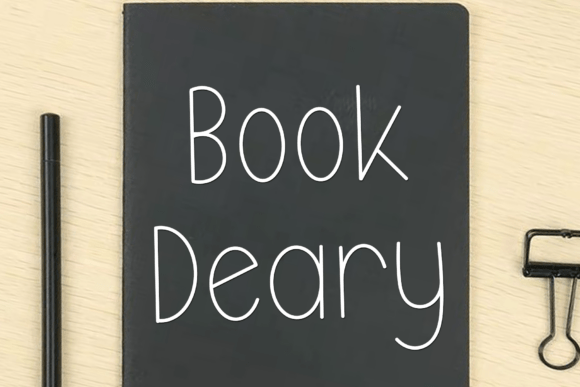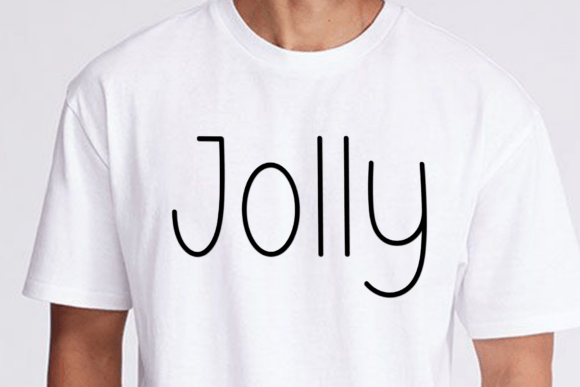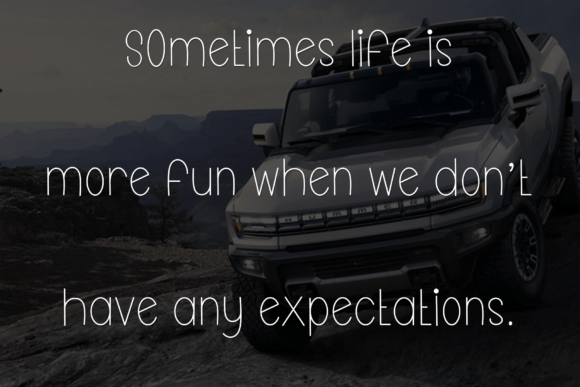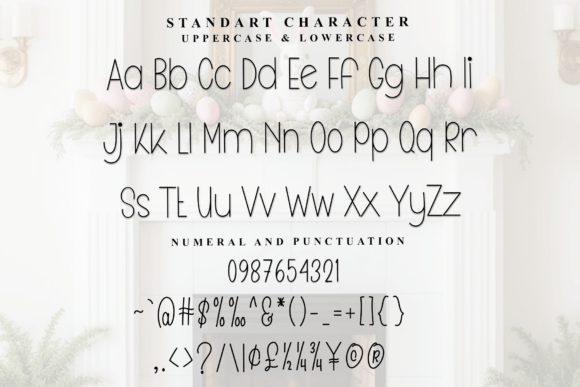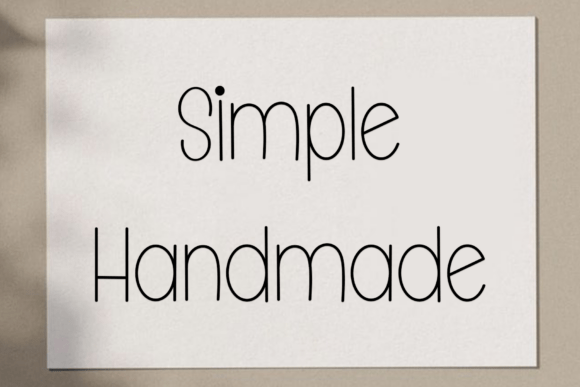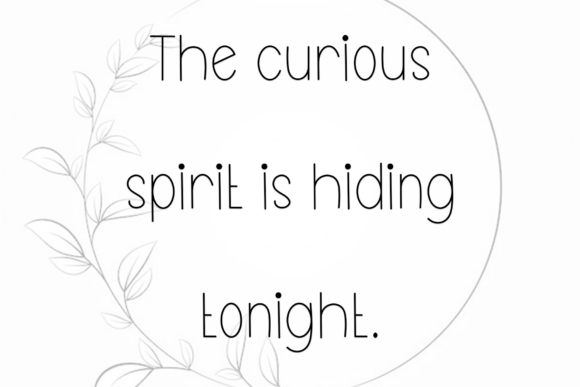
Introducing Colorfull Font: The Ultimate Holiday Typeface
Are you looking for a font that embodies the spirit of the holiday season? Look no further than Colorfull Font, a festive and merry typeface that is sure to add a touch of enchantment to your designs. With its decorative elements and whimsical flair, this font is perfect for greeting cards, gift tags, and holiday-themed projects.
The Magic of Colorfull Font
Colorfull Font is a beautifully crafted typeface that captures the essence of the holiday season. Its decorative elements and whimsical flair make it perfect for adding a touch of magic to your designs. Whether you’re creating greeting cards, gift tags, or holiday-themed projects, this font is sure to bring a cheerful and nostalgic ambiance to your words.
Colorfull Font is a must-have for designers and crafters who want to add a touch of holiday cheer to their projects. With its PUA encoding, you can easily access all of the amazing glyphs and ligatures, making it easy to create beautiful and unique designs. Whether you’re a professional designer or a crafter, this font is sure to inspire your creativity and help you create stunning holiday-themed projects.
Key Features of Colorfull Font
- Festive and Merry: Colorfull Font is a festive and merry typeface that captures the spirit of the holiday season.
- Decorative Elements: The font features decorative elements and whimsical flair, making it perfect for adding a touch of enchantment to your designs.
- Perfect for Holiday Projects: Colorfull Font is perfect for greeting cards, gift tags, and holiday-themed projects.
Tips for Using Colorfull Font
Here are a few tips for using Colorfull Font in your designs:
- Use it for Headings: Colorfull Font is perfect for headings and titles, adding a touch of festive flair to your designs.
- Experiment with Colors: The font looks great in a variety of colors, so don’t be afraid to experiment and find the perfect hue for your design.
- Pair it with Other Fonts: Colorfull Font pairs well with other fonts, so try pairing it with a simple sans-serif font for a unique look.
The Benefits of Using Colorfull Font
There are many benefits to using Colorfull Font in your designs. Here are a few:
- Adds a Touch of Festive Flair: The font adds a touch of festive flair to your designs, making them perfect for the holiday season.
- Versatile: Colorfull Font is versatile and can be used for a variety of projects, from greeting cards to holiday-themed posters.